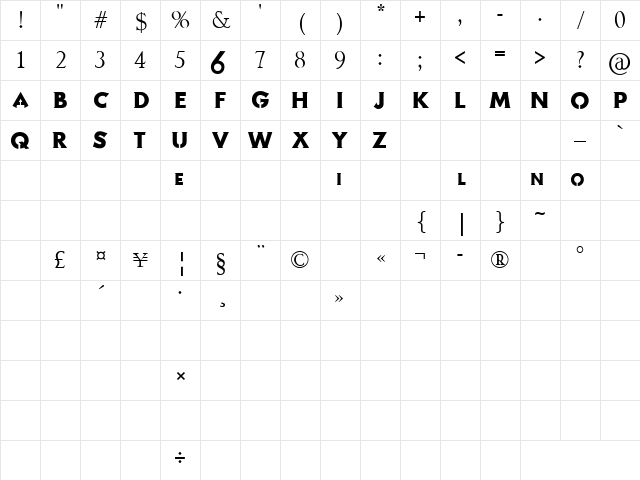
MuOnline Regular
Design Context for MuOnline
MuOnline is a composed and adaptable typeface that performs quietly and consistently across a wide range of design contexts.
Pro Tip: Use MuOnline in both headline and body roles to test its range before committing to a single application.